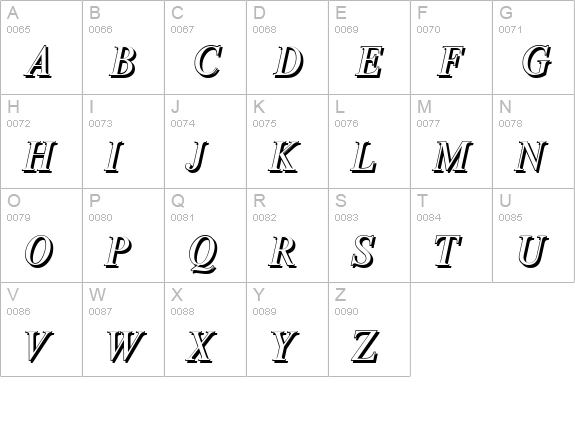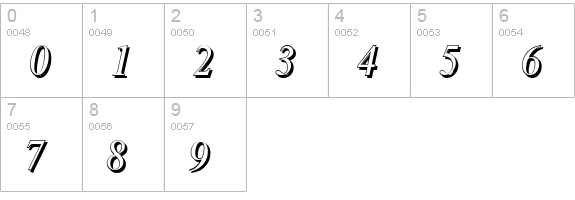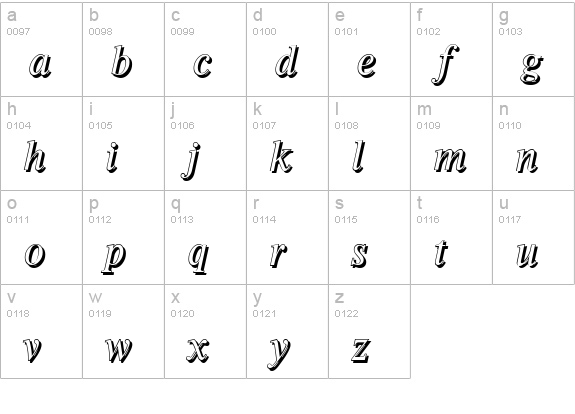
ThamesShadow-Italic Font Details
ThamesShadow-Italic is a distinctive, italic variant in the ThamesShadow typeface family \xE2\x80\x94 well suited to design and typography projects.
ThamesShadow-Italic is a sophisticated and elegant font that exudes a sense of mystery and intrigue. Its sleek, italicized design gives any text a touch of modern flair, making it perfect for projects that require a contemporary and stylish look. The unique shadow effect adds depth and dimension, creating a visually striking appearance that will captivate readers. Whether you're designing a poster, logo, or website, ThamesShadow-Italic is sure to make a bold statement. Best of all, ThamesShadow-Italic is completely free to download at FontsMarket.com. This means you can add this stunning font to your collection without any cost, making it a valuable asset for your creative endeavors. Don't miss out on the opportunity to enhance your designs with ThamesShadow-Italic – download it today and see the difference it can make!